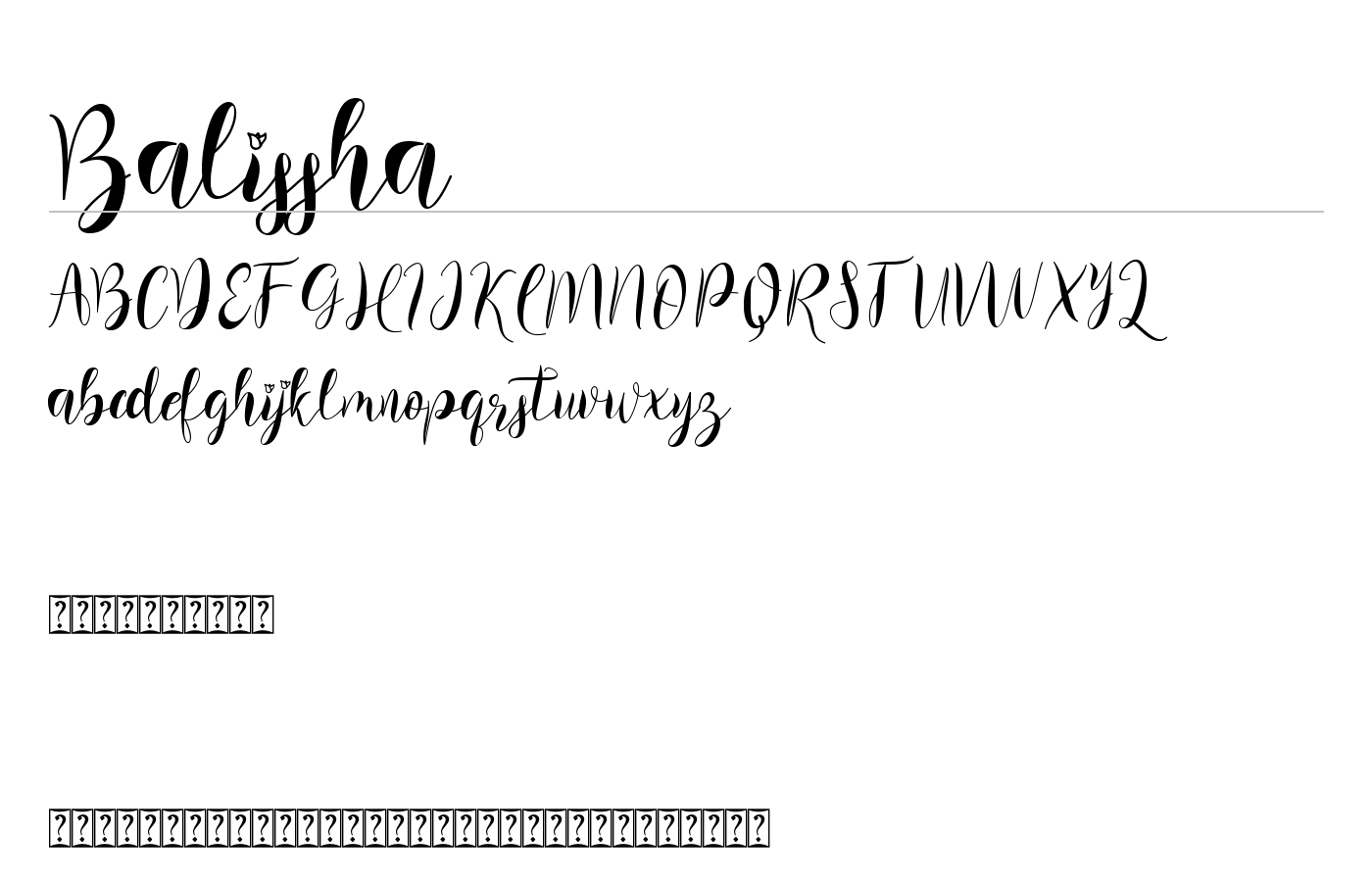
Balissha is a charming script font with elegant, flowing strokes and playful heart details that add a whimsical touch. Its varied stroke thickness and smooth curves create a modern yet romantic feel, making it perfect for wedding invitations, branding, and feminine design projects where warmth and personality are key. This font excels in headlines and logos, bringing a stylish, handcrafted vibe to any creative work.
Balissha Font
About Balissha Font
| Font family | Balissha Font |
| Designer | Yoga Letter 2020 (Isroni Yoga Prasetya) |